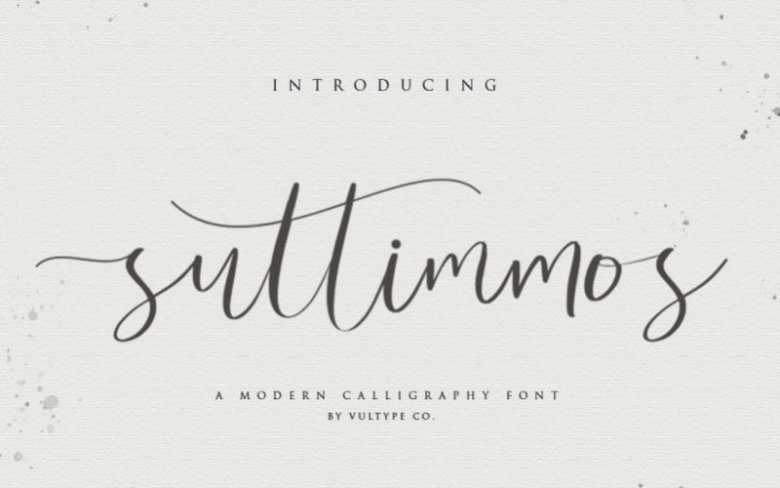
Suttimmos Script Font
Suttimmos Script Font is a Elegant script that feels elegant calligraphy font, and modern. It’s designed and shared by vultype. A romantic modern calligraphy script font packed, it’s a boho chic handwritten font.
It is PUA encoded, which means that you can access all of the glyphs and swashes with ease! It features a varying baseline, smooth lines, gorgeous glyphs and stunning alternates. Fall in love with its unique style and use it to create spectacular designs!